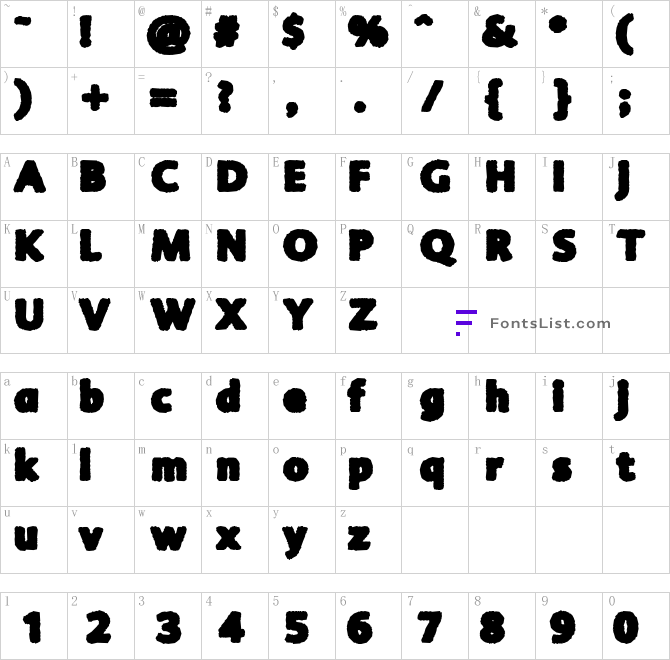
- Font Name:AdvertRough
AdvertRough-Five.ttf is a very beautiful artistic font, AdvertRough-Five.ttf is widely used in the design and printing of various books and pictures,AdvertRough-Five.ttf has a strong visual impact,AdvertRough-Five.ttf is a commonly used font in newspapers, magazines and books, and is used in posters, e-commerce Poster design, store design, logo design, font design and other fields.AdvertRough-Five.